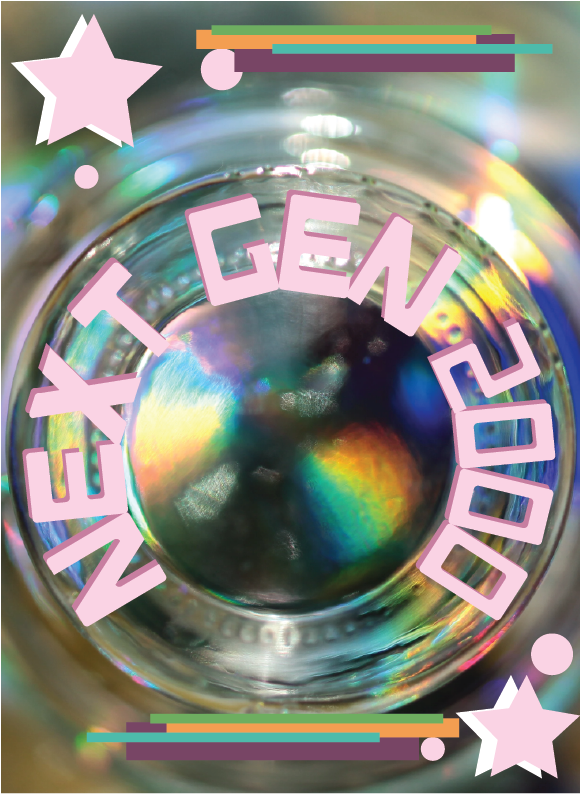
• Glitchtech is a simple typeface with no serifs, and rounded edges. It has a more thicker style combining round and sharp edges. It has a more vintage/y2k feel to the design but can be used even as a modern design.